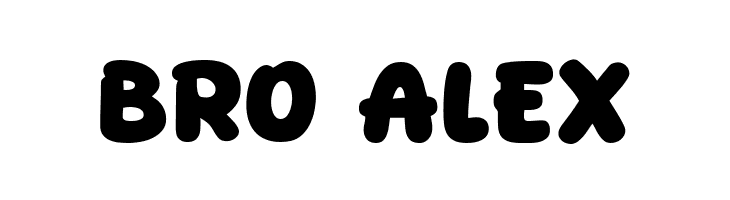
A bold, dynamic script font with brush-like strokes and high contrast.
A bold, distressed font with a grunge-like, energetic style.
A dynamic, hand-drawn font with a rough, edgy style.
A bold, dynamic font with a slight forward slant and modern appeal.
A bold, playful font with rounded edges and a bubbly appearance.
A playful, tall, and narrow font with consistent stroke width.
A playful, rounded font with tall, narrow letters and smooth curves.
A sleek, italicized font with elongated, narrow characters for a modern look.
A playful, rounded font with a hand-drawn, whimsical style.
A playful, sketch-style font with bold outlines and diagonal hatching.